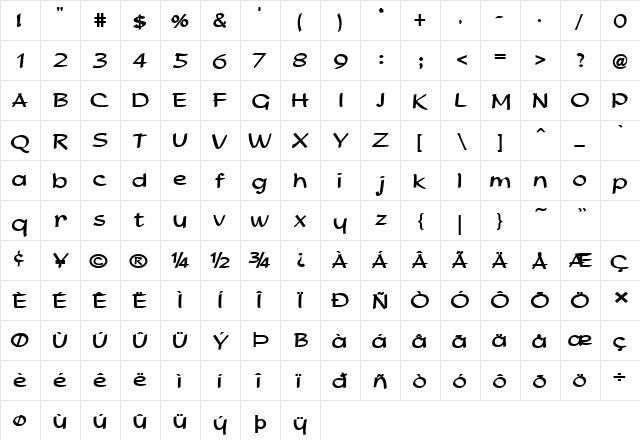
Parson-Extended Bold Font Preview
Parson-Extended Bold
Parson-Extended Bold Font Details
Design Context for Parson-Extended Typeface
Parson-Extended is a composed and adaptable typeface that performs quietly and consistently across a wide range of design contexts. Its bold stroke weight gives it real presence on the page.